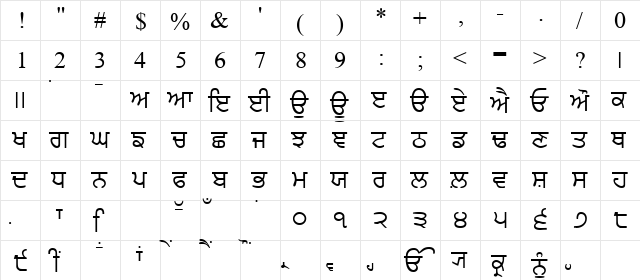
PunjabiAmritsarSSK Regular
Design Context for PunjabiAmritsarSSK Typeface
PunjabiAmritsarSSK is a composed and adaptable typeface that performs quietly and consistently across a wide range of design contexts.